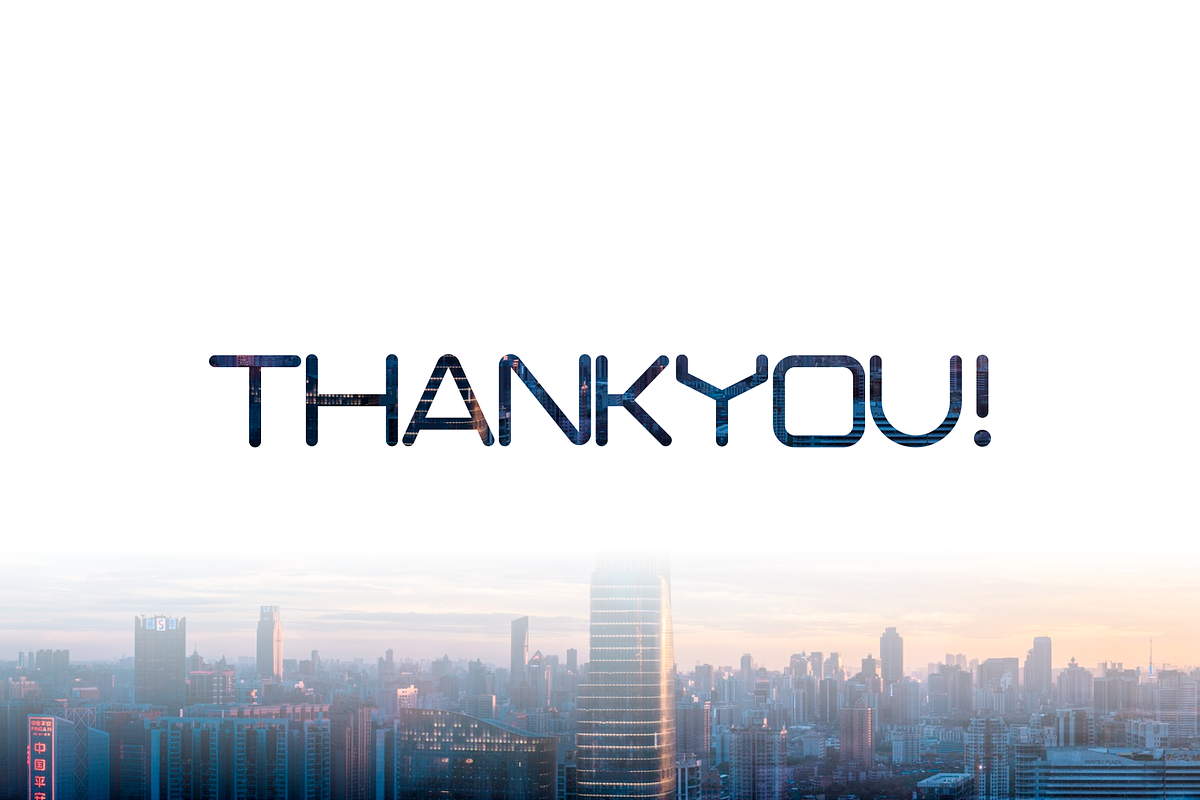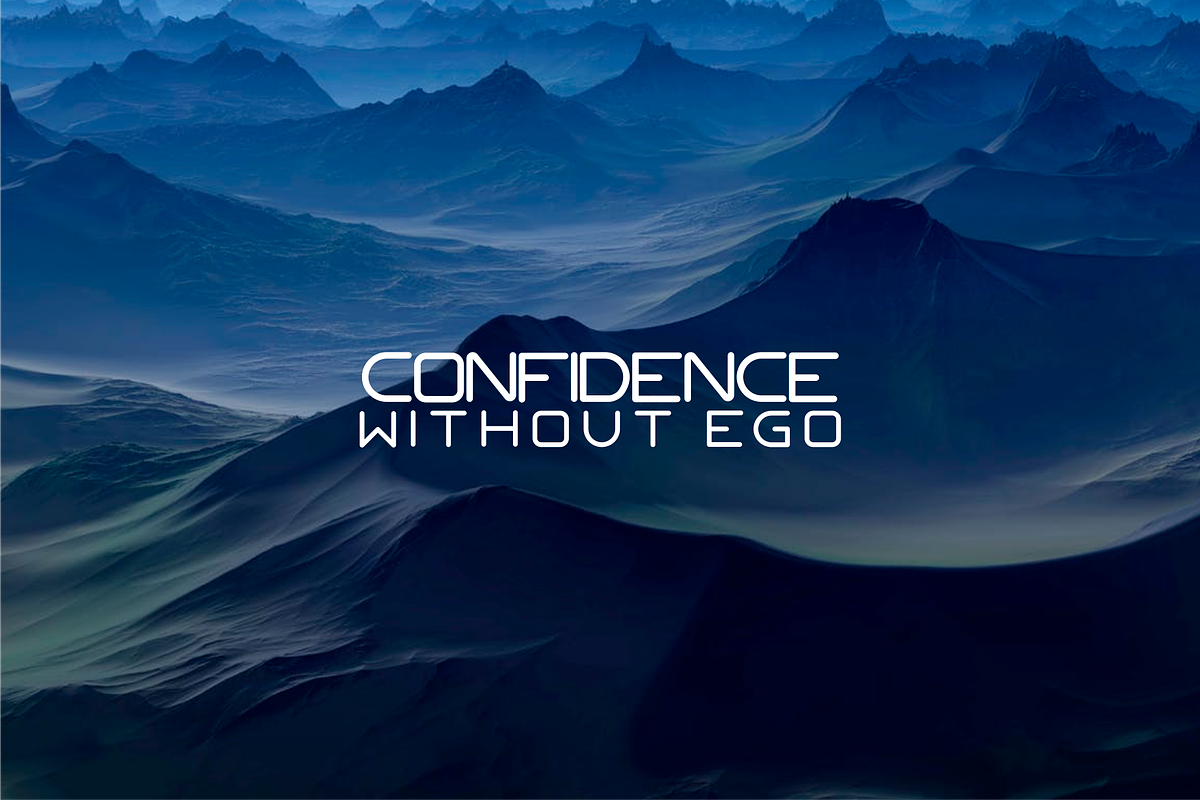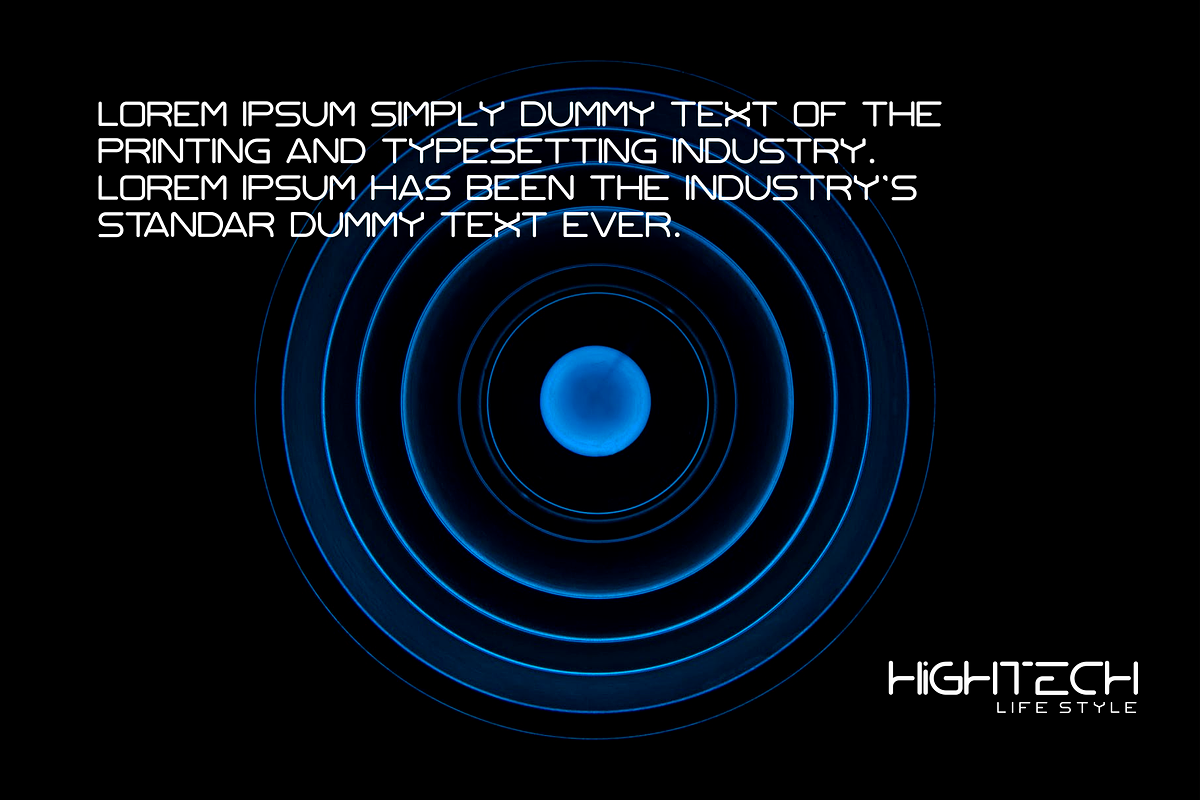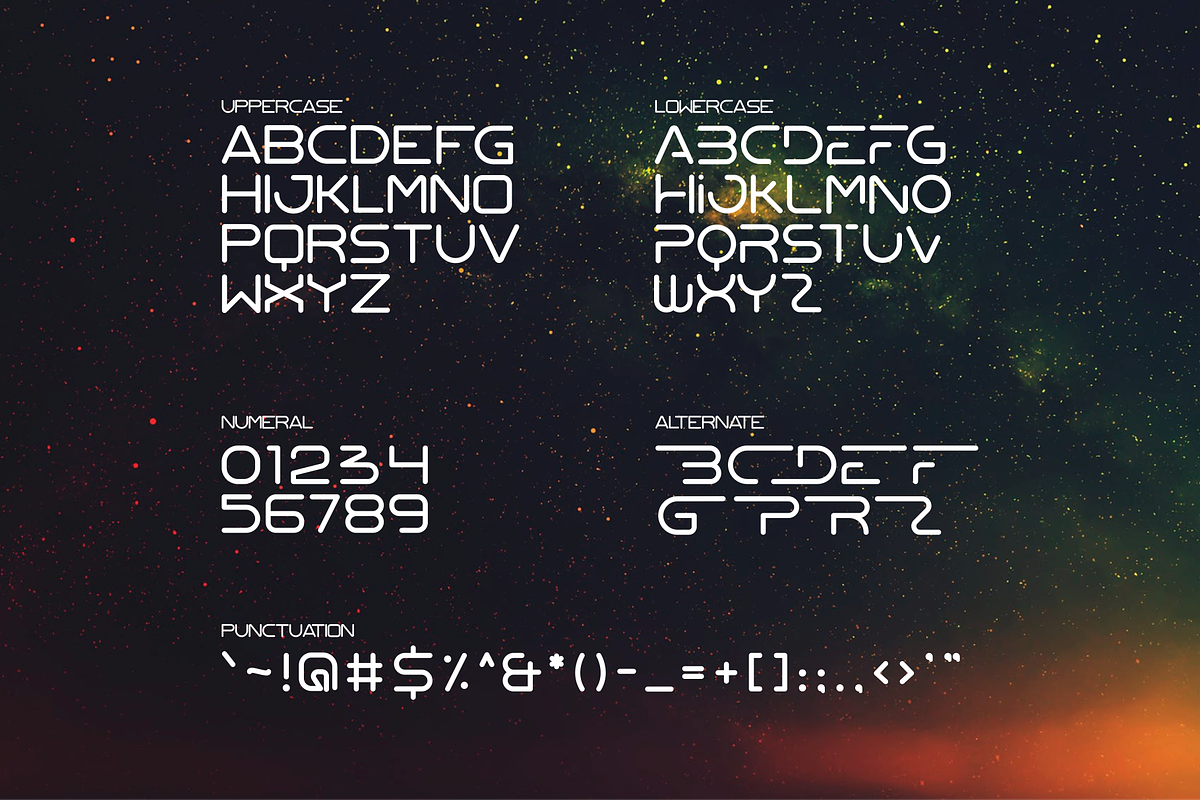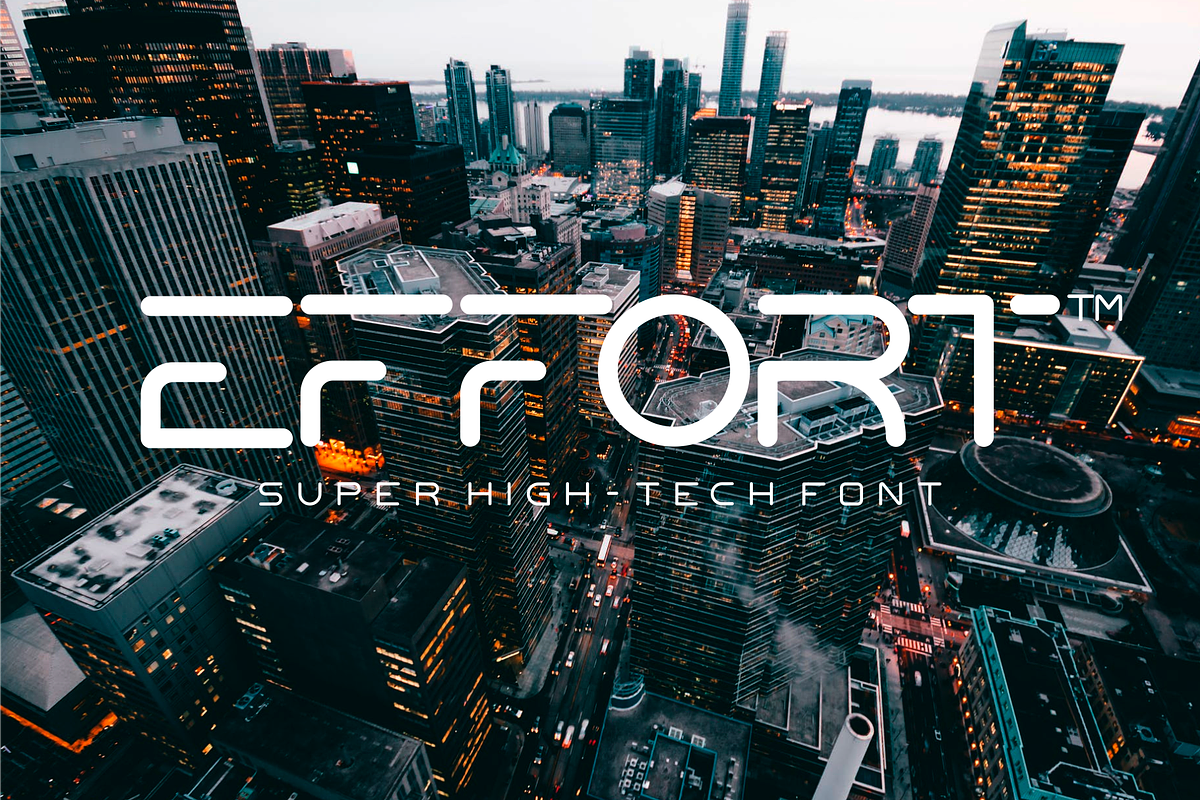
Effort High-Tech Font
Effort is a sans-serif uppercase font, perfect for something related to technology.
- Effort is a sans-serif uppercase font, perfect for something related to technology.
Why Effort High-Tech Font is worth a look
Effort High-Tech Font by 24Design Studios fits naturally into Branding, posters, packaging, typography.